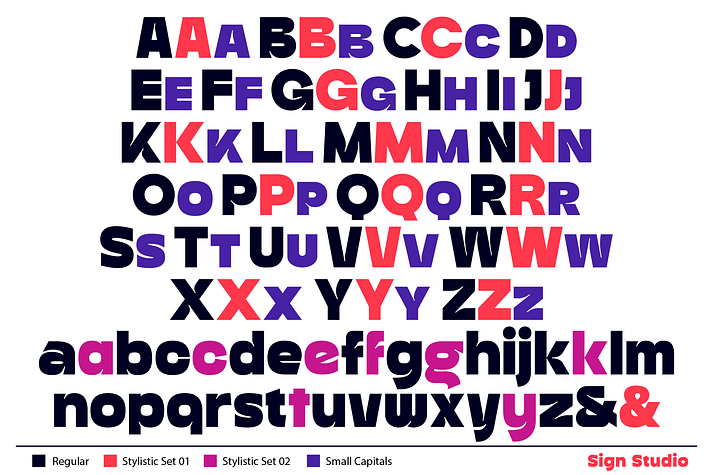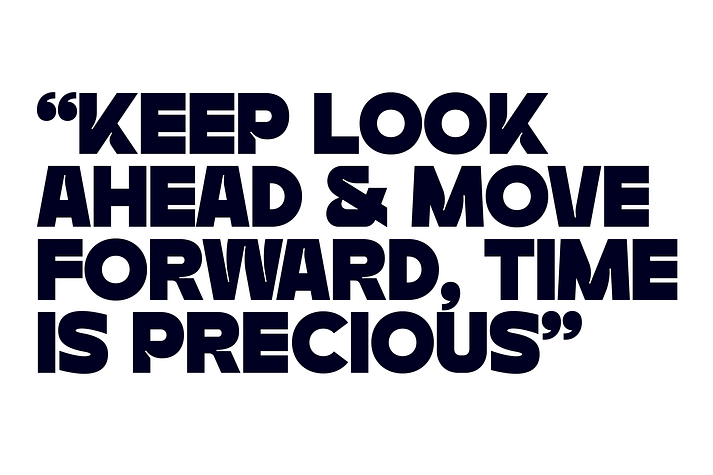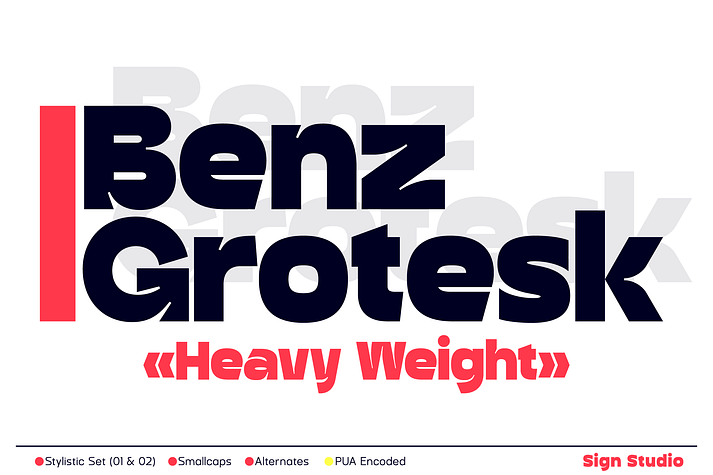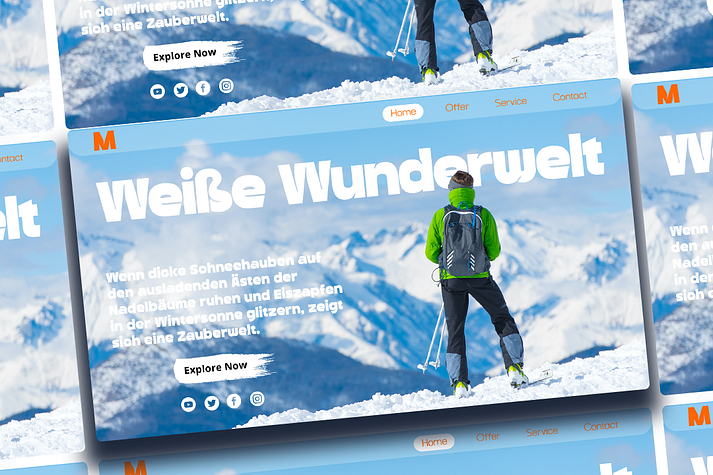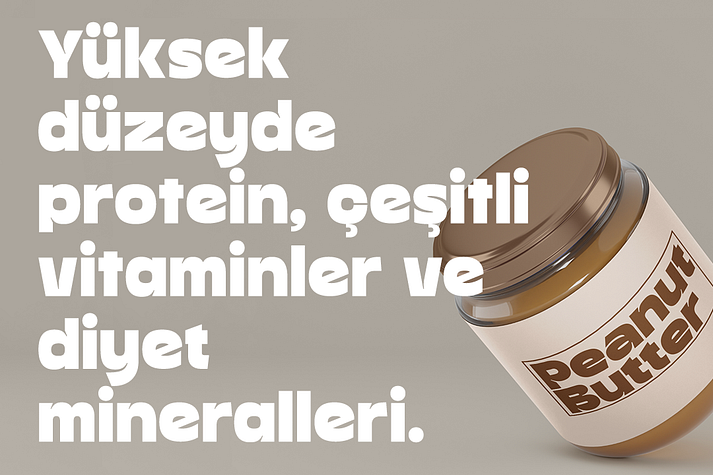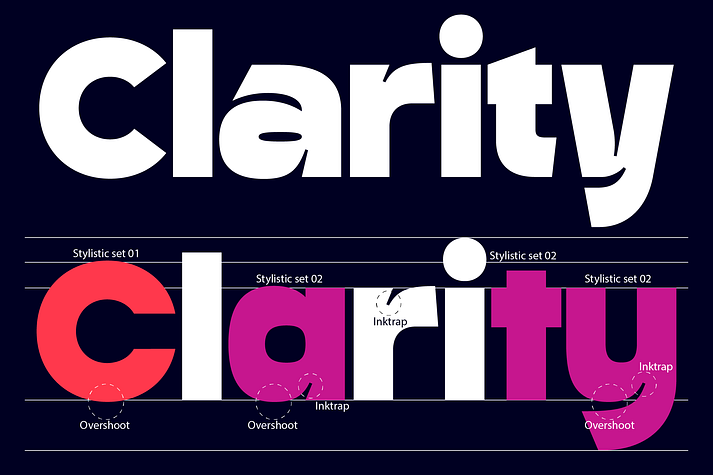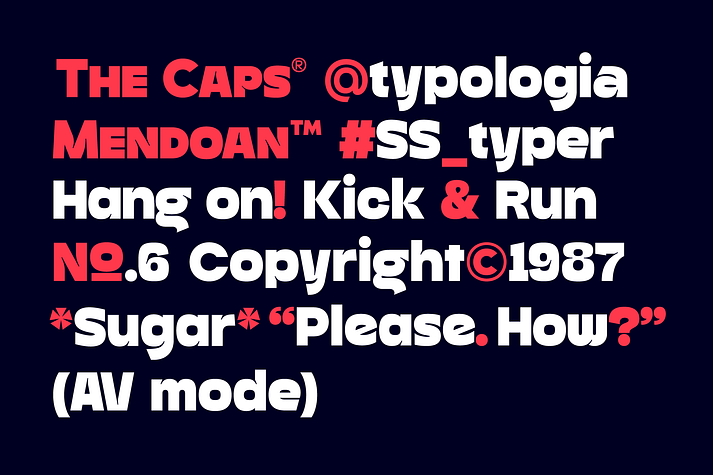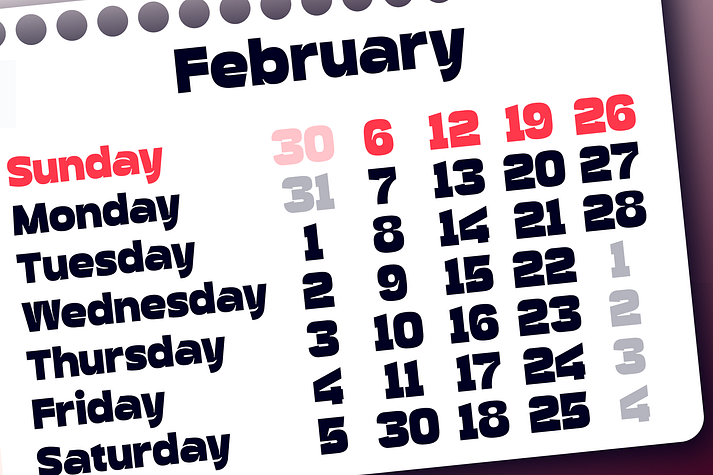
Benz Grotesk
Benz Grotesk is a sans serif font family published by Sign Studio.
Benz Grotesk can be used to style text that requires attention in a sentence but still has subtlety. We try to keep every corner well proportioned. With more than 400 characters, we hope that Benz Grotesk can support a fairly complete language. Has a fairly high detail with inktrap on some corners of the body.This font will help you when designing posters, headlines, product branding, logotypes, minimalist typography and more.